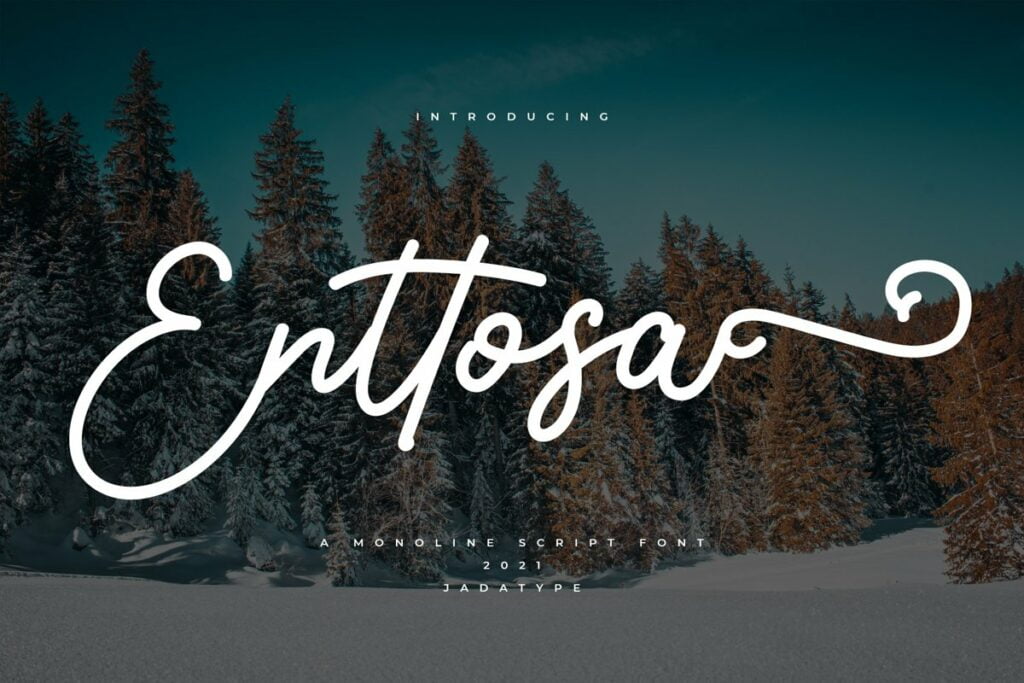
Enttosa Font
Introducing the Enttosa Font is a monoline script font with its elegant and clean appearance. Enttosa is suitable as a companion font for your branding name, product, logotype, name on business cards, for social media purposes, advertising, and so on.
Enttosa Monoline Script Font